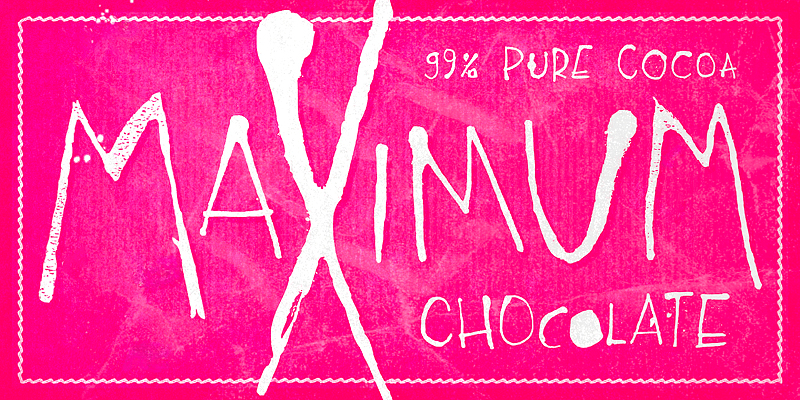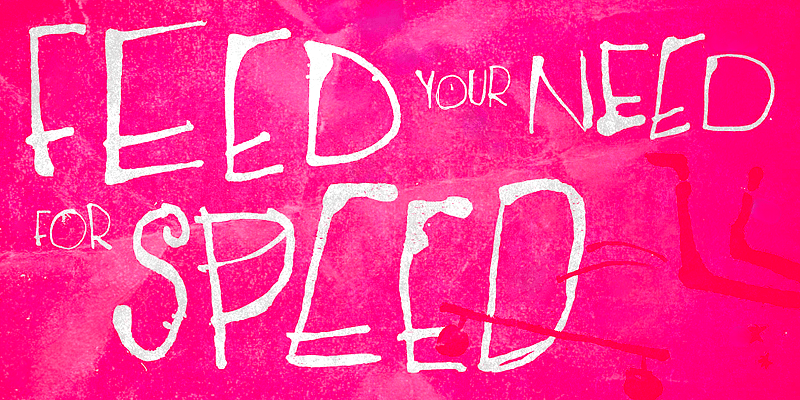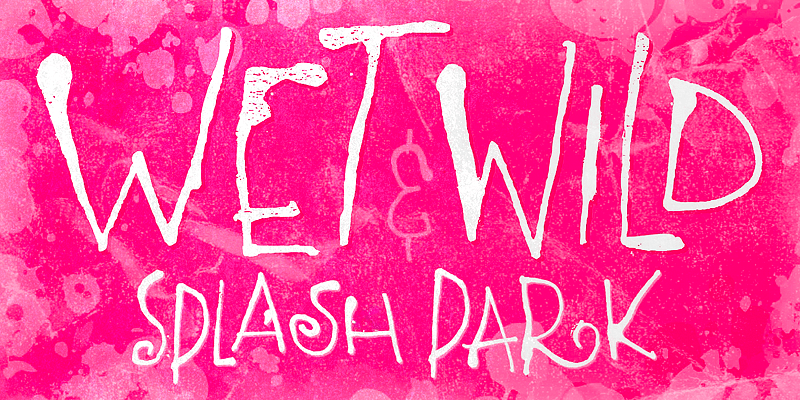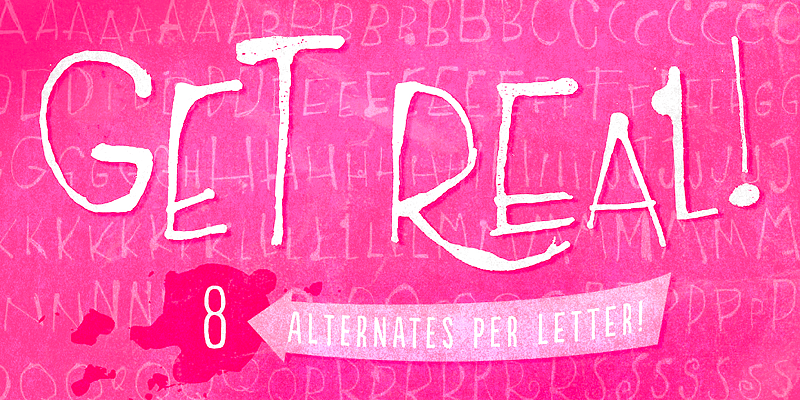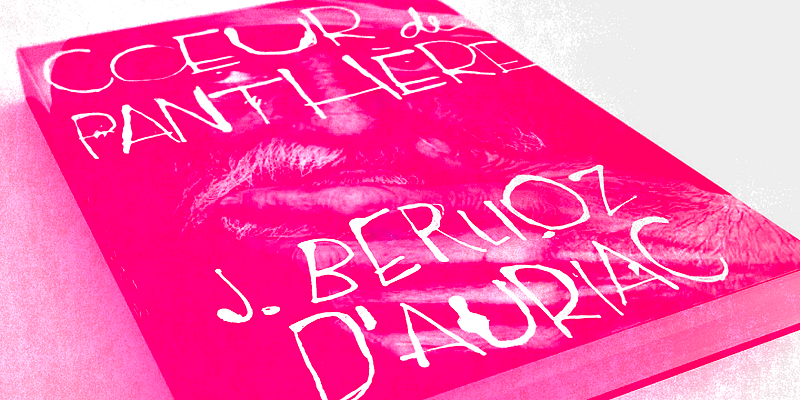
Rockinstead was initially painted on paper, drawing inspiration from Ralph Steadman’s seminal lettering style. At first glance, it may look quite wild. But look again: it is also stylishly unpredictable, full of attitude, and good energy. There are eight variations per letter, allowing you to create an impressively convincing hand-lettered look. The font also includes cursive catchwords, adding that charming twist. Rockinstead is undoubtedly perfect for any free-spirited design applications.